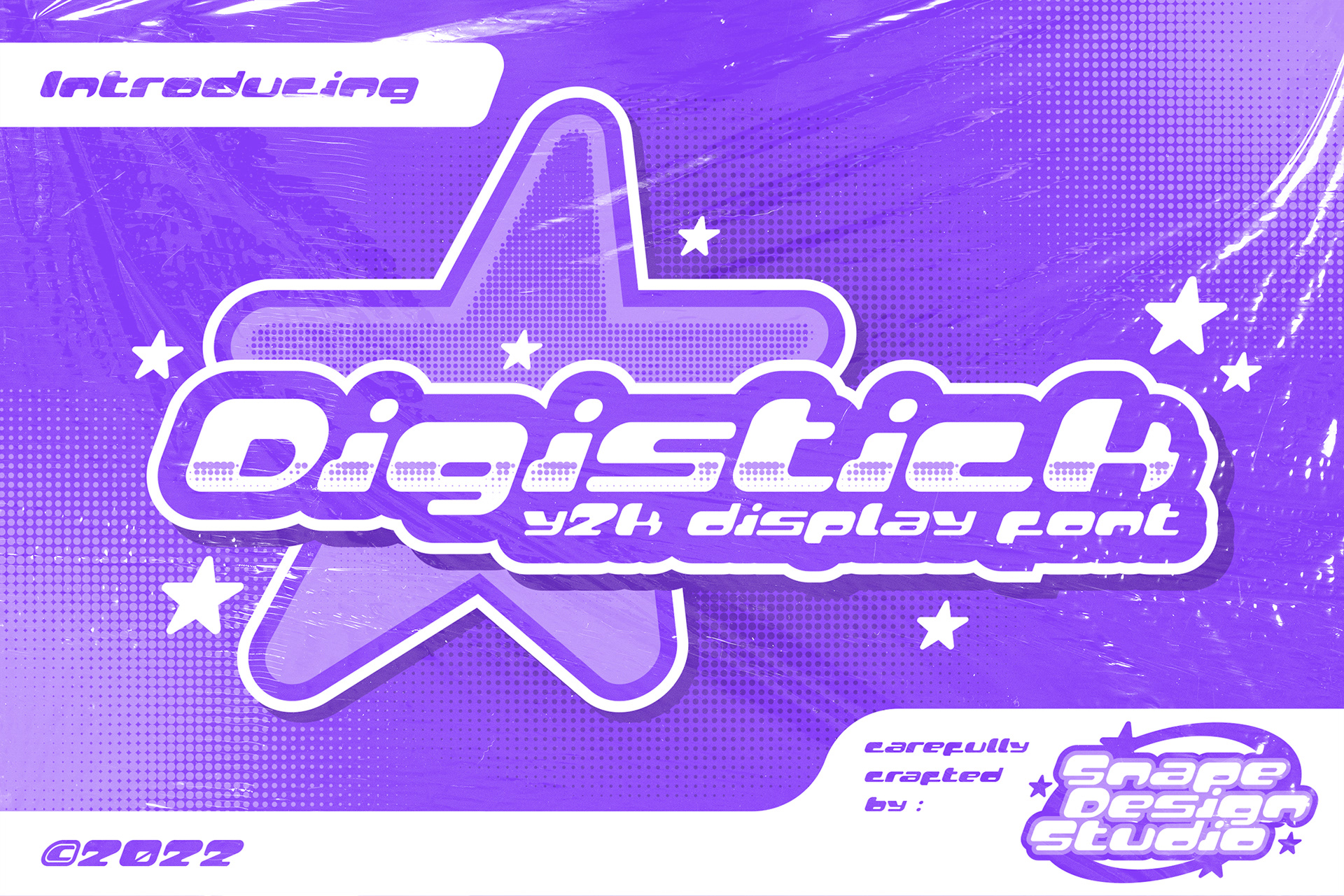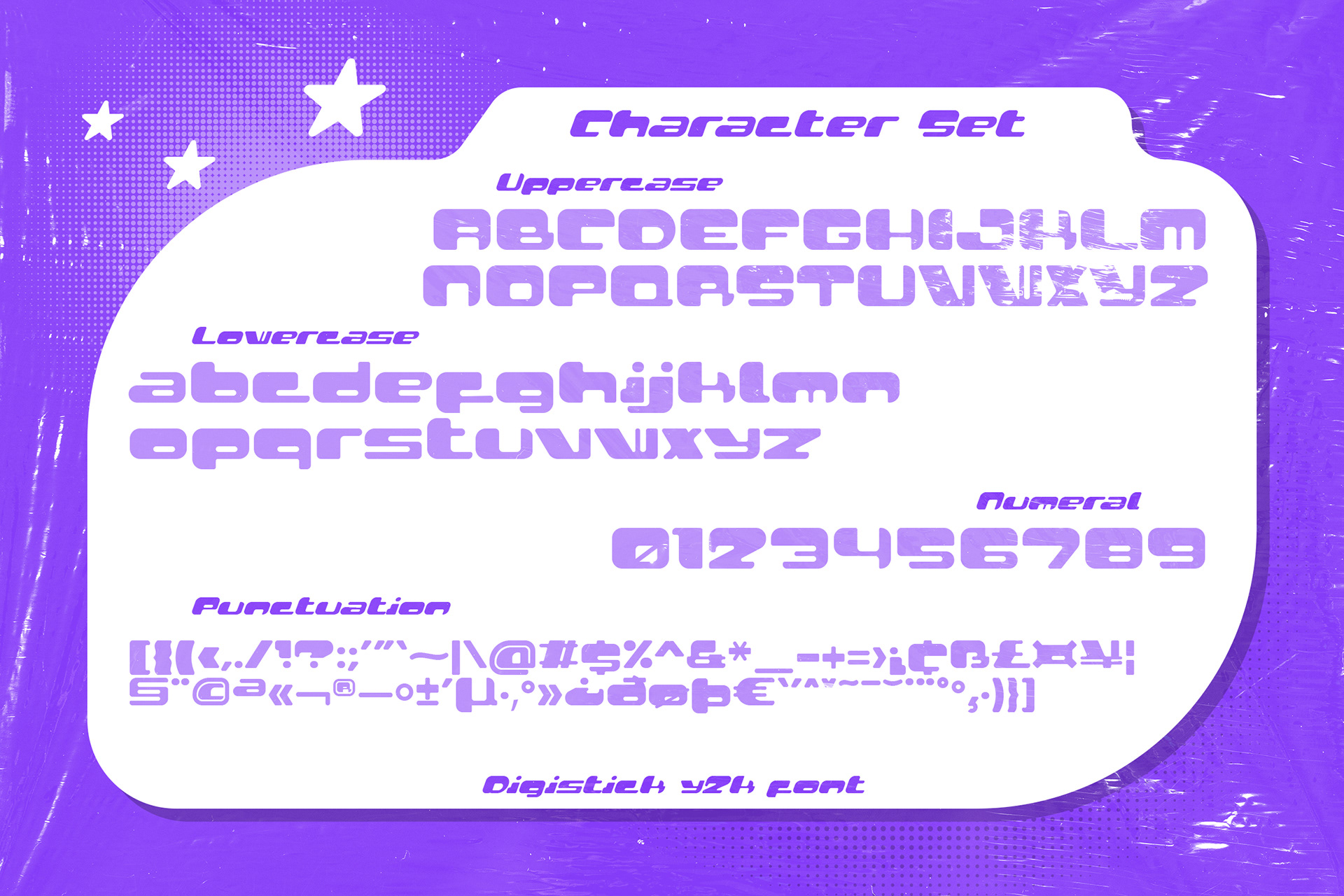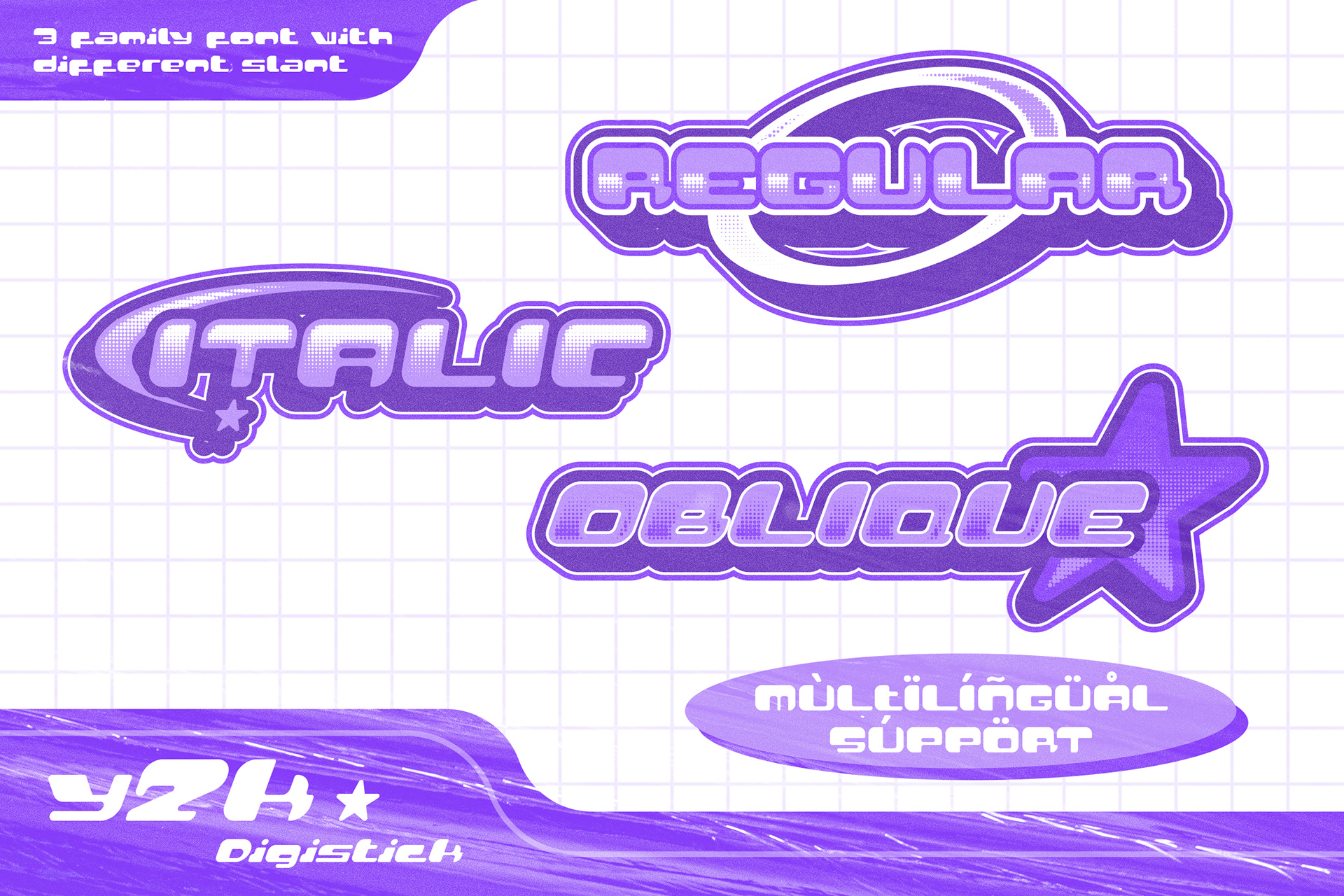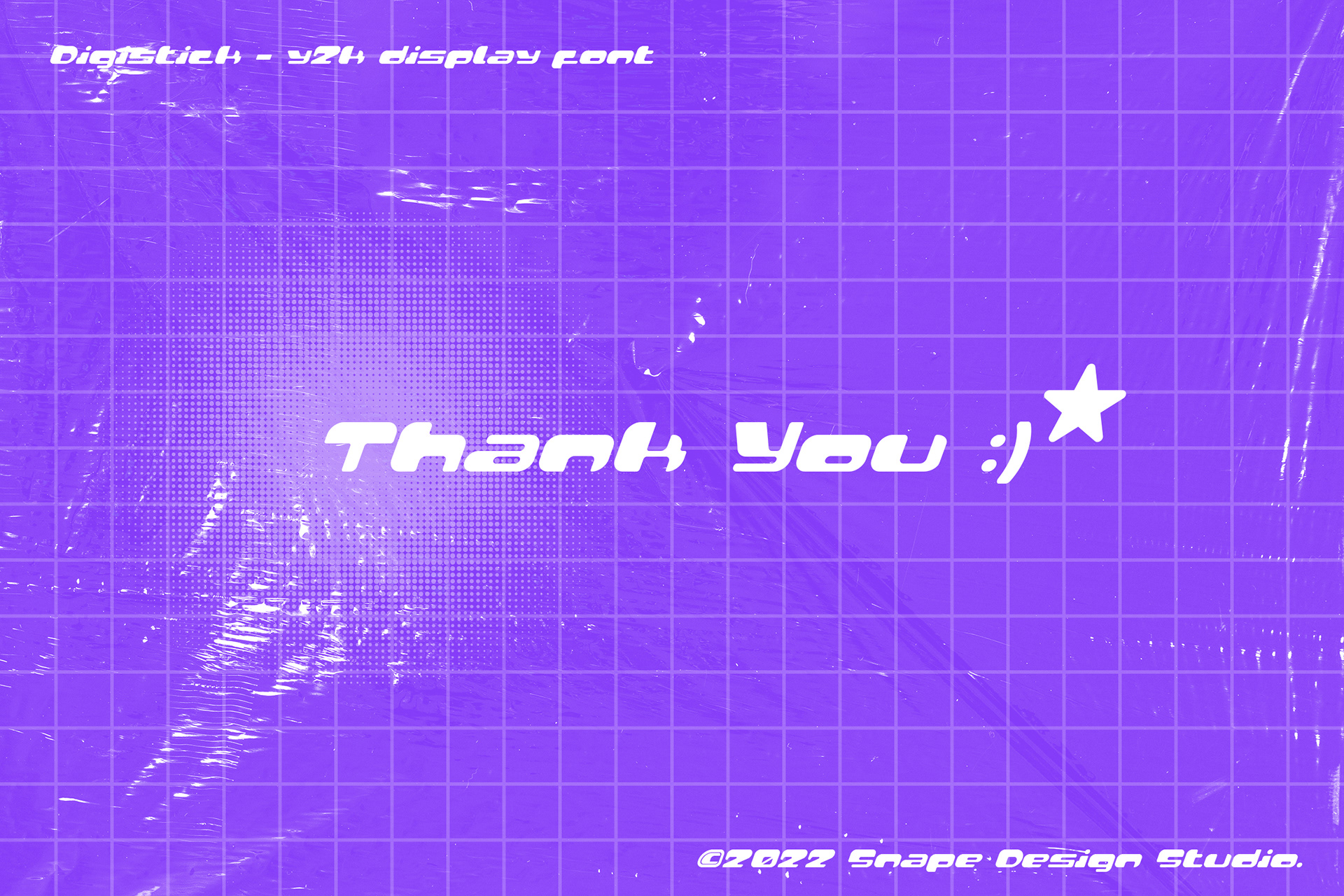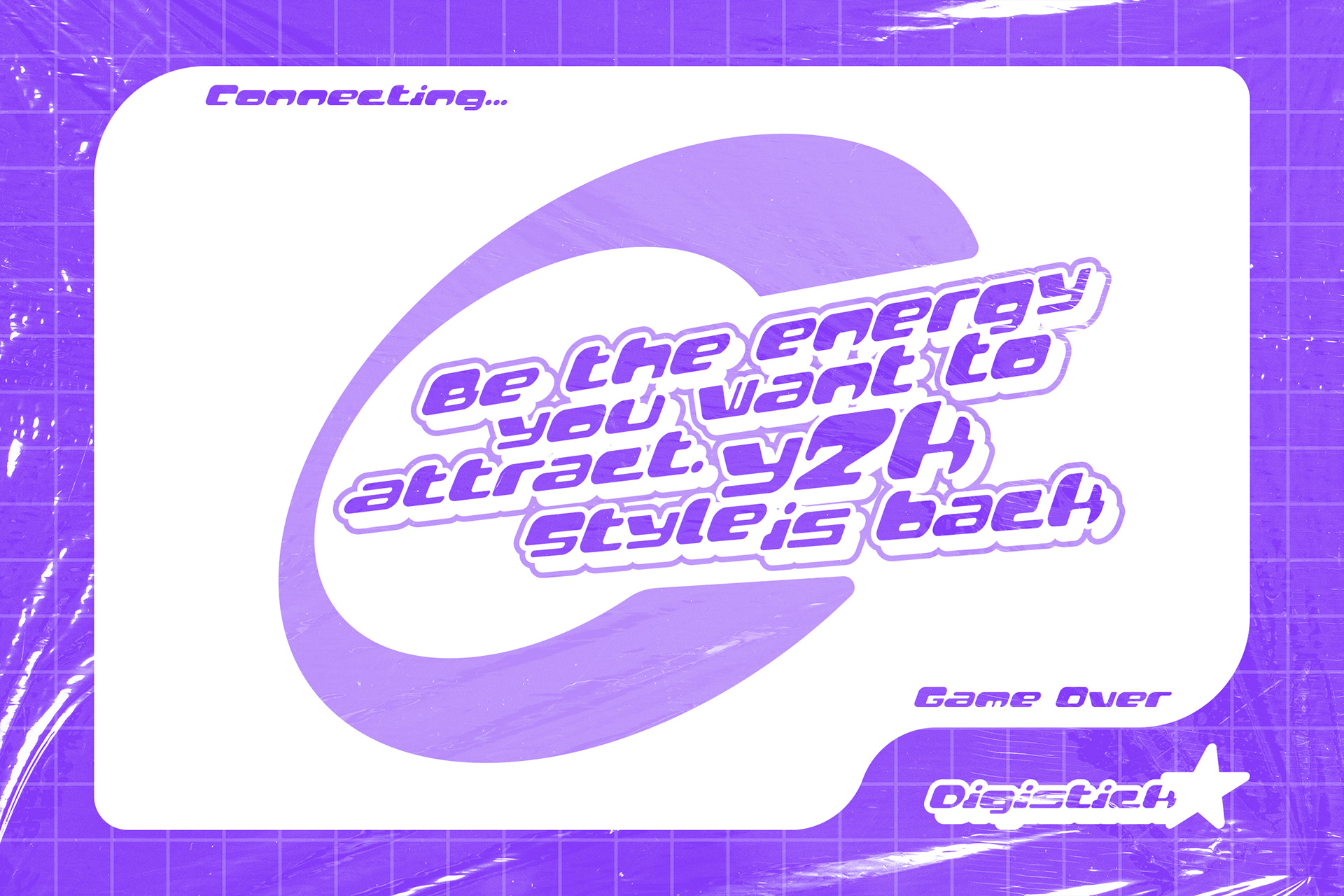
Digistick is a futuristic font. Heavy influence by Y2K design era through music and their pop culture, perfect for technology, digital, space galaxy theme. Also suitable for movie, documenter, film, logo, poster, game, book cover, headlines, title and many more projects. Add this font to your creative ideas and notice how it will make them stand out!
Digistick - Y2K Display Font design by Ario Sabrang Damar publish under Snape Design Studio